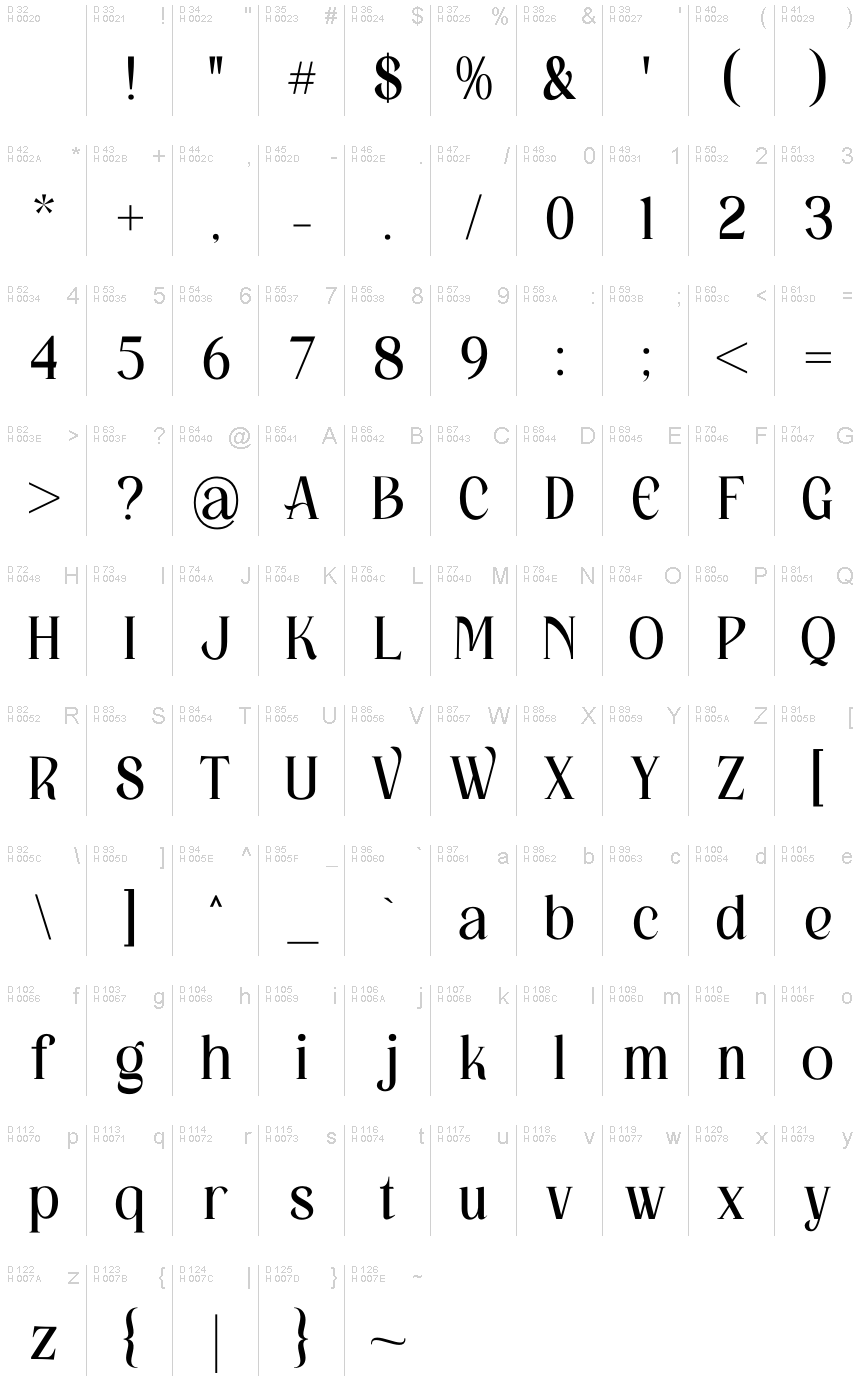
Hafigde
Hafigde, a captivating serif font crafted by Storytype Studio, exudes a timeless elegance with its refined, yet dynamic letterforms. The font's intricate details and harmonious proportions create a visually striking and sophisticated aesthetic, inviting the reader to immerse themselves in its refined charm. Hafigde's versatile nature allows it to seamlessly adapt to a wide range of design applications, from high-end editorial layouts to impactful branding and packaging designs.
The font's versatility makes it a compelling choice for projects that require a touch of refined opulence. Its legibility and classic appeal lend themselves well to headline text, titles, and other prominent design elements, while the font's nuanced character can also be leveraged for body copy and informative content. Hafigde's versatility extends across various industries, allowing designers to elevate the visual impact of their work with this distinctive and memorable typeface.